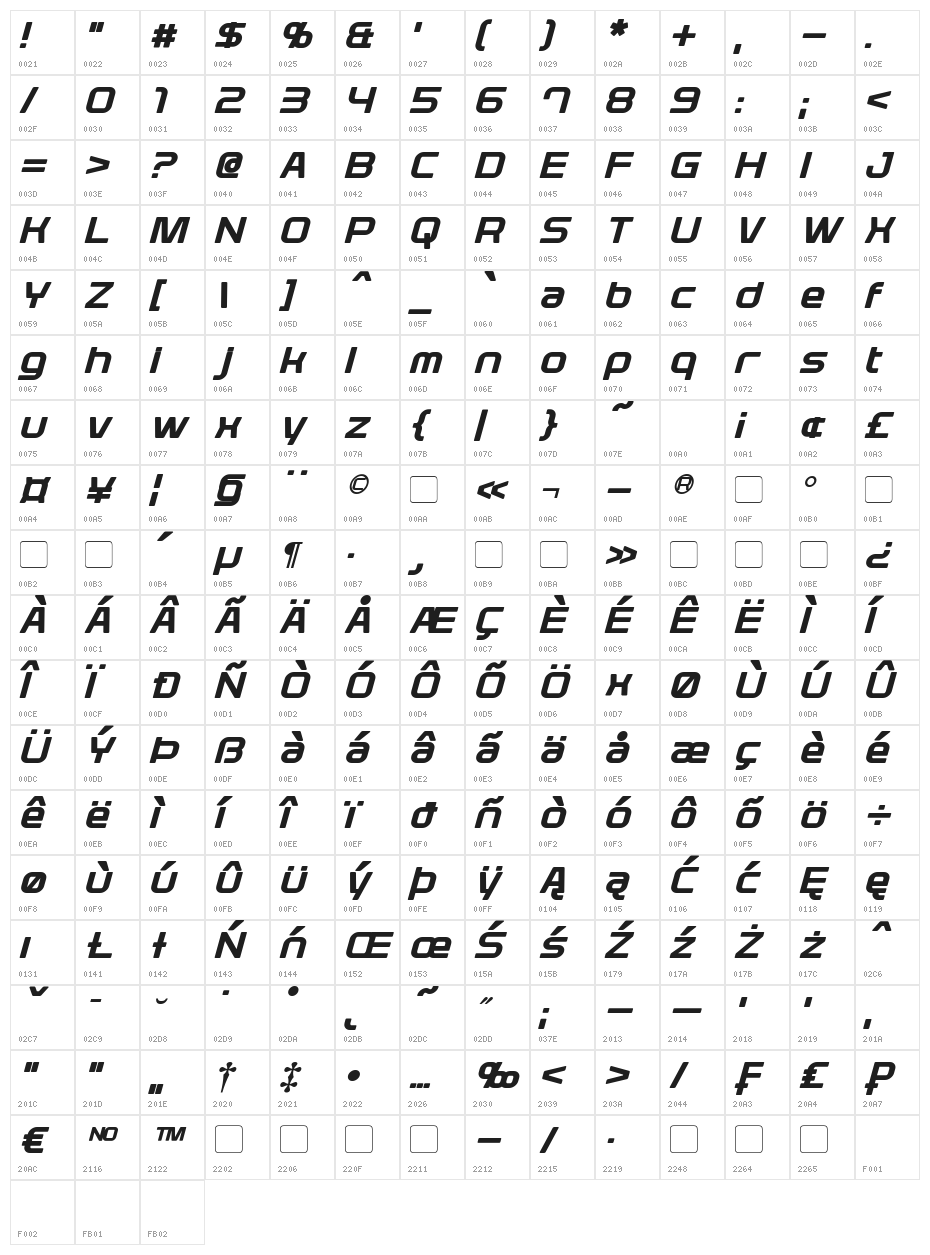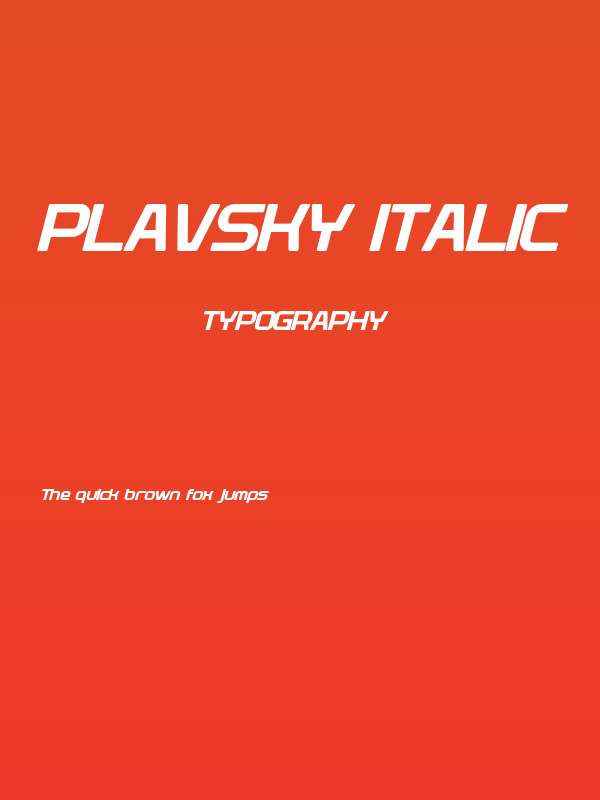
Plavsky Italic Font
Plavsky Italic Description
This font features a sleek, modern design with a distinct italic slant, giving it a dynamic and forward-moving appearance. The characters are bold and slightly condensed, with smooth curves and sharp angles that create a sense of speed and efficiency. The uppercase and lowercase letters maintain a consistent style, with a uniform stroke width that enhances readability. The numerals and special characters are designed to complement the alphabet, maintaining the same stylistic elements. This font is ideal for projects that require a contemporary and energetic feel.
| Use Case | Logos, Headlines, Branding |
| Proposed Projects | Ideal for branding, sports team logos, automotive designs, and tech-related projects. |